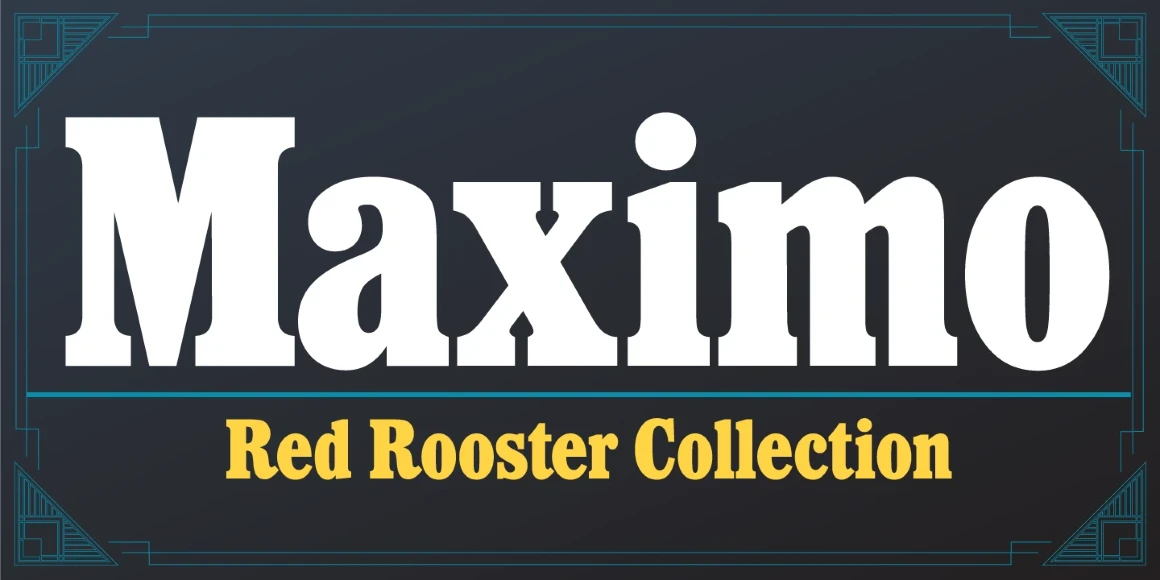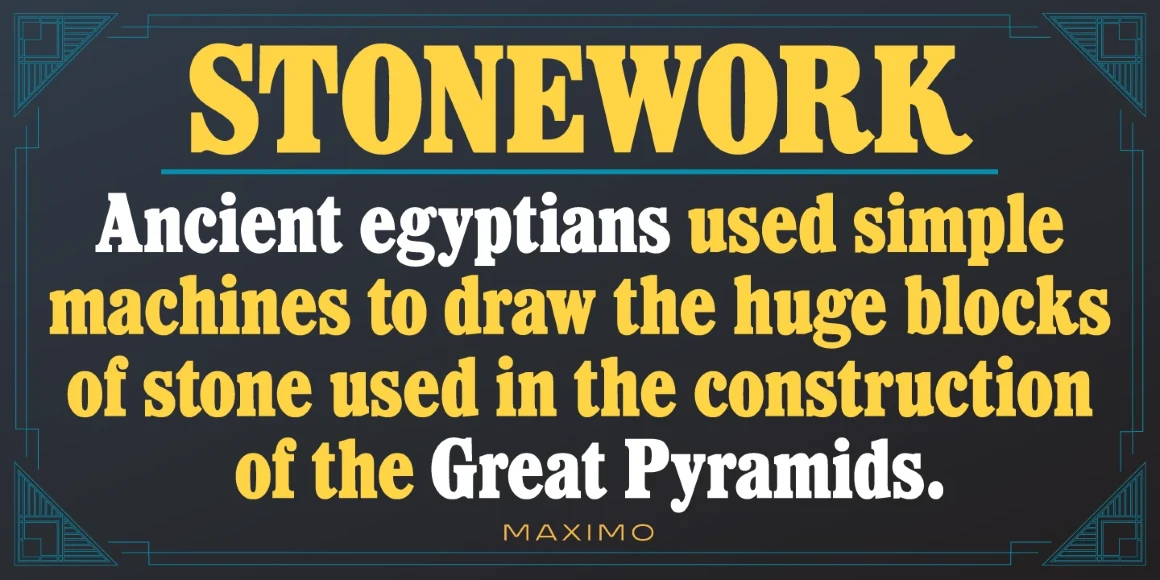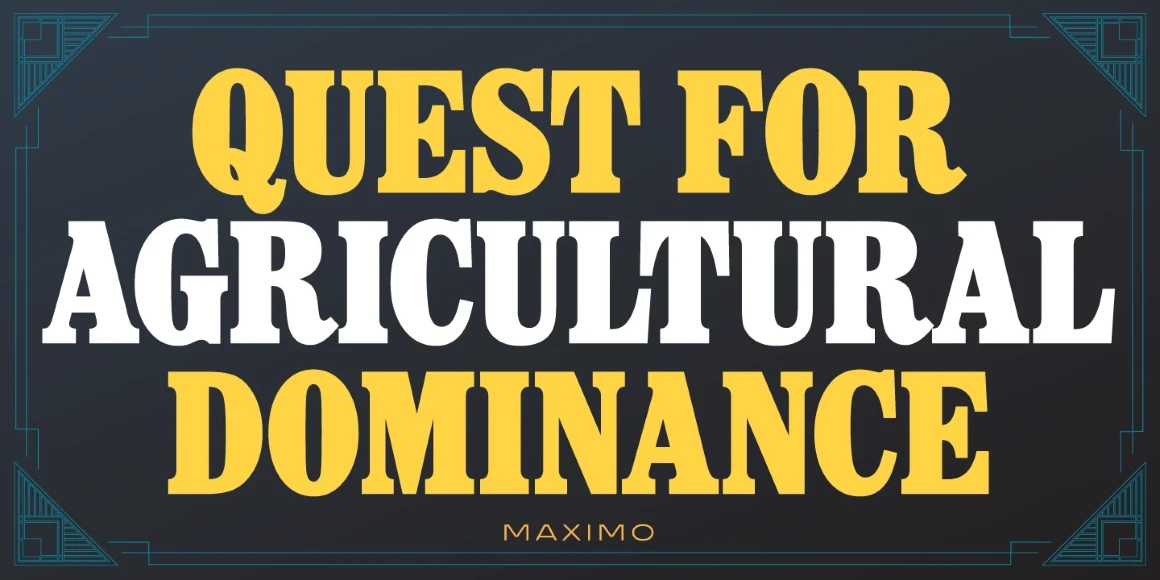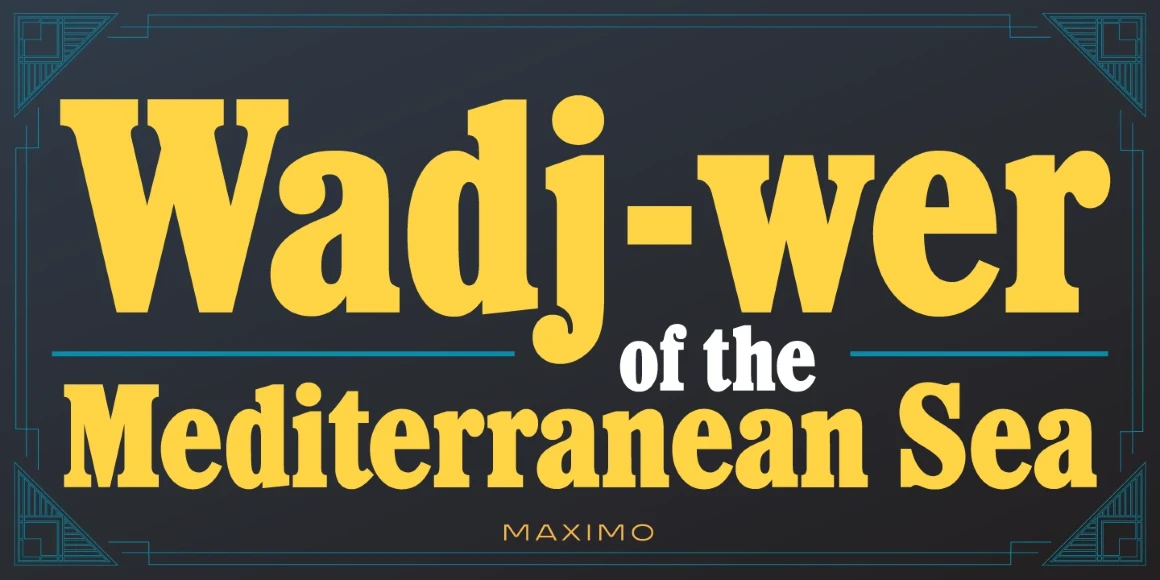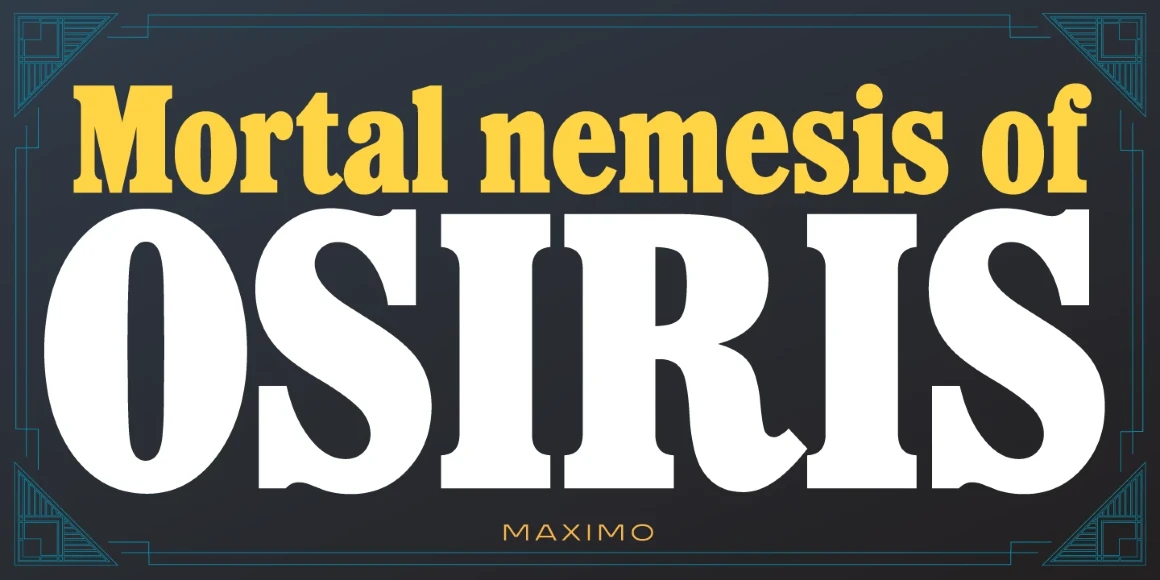
Maximo is a condensed Egyptian typeface, exclusively licensed from the Typsettra Collection. The original design, created by Les Usherwood (Typsettra), had roots as a metal typeface. Steve Jackaman (ITF) produced the current version of the font in 1997. Maximo, like many Egyptian faces, excels at display and subhead sizes. It is incredibly powerful in all caps, and yet its lowercase set still showcases a soft feel. Like many Usherwood and Jackaman typefaces, it was designed with utmost care with utility in mind.
Maximo Regular